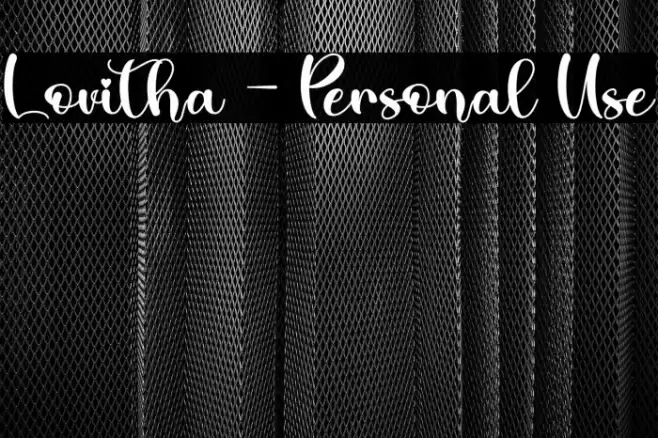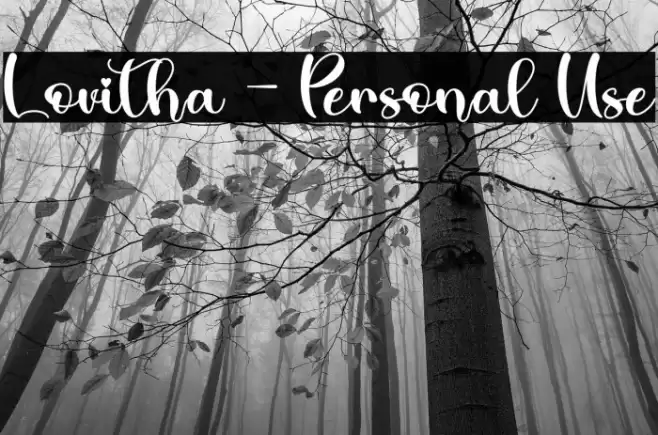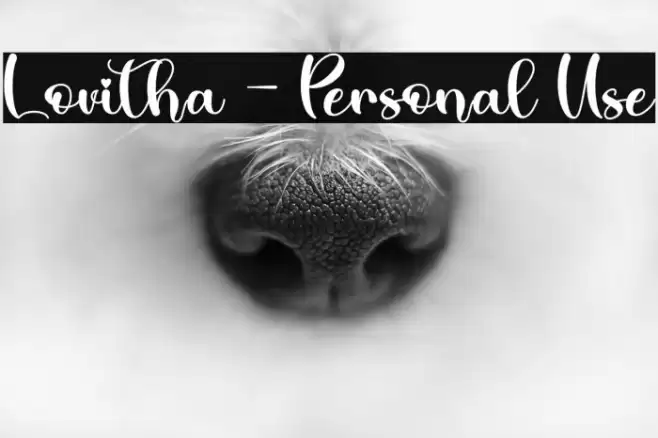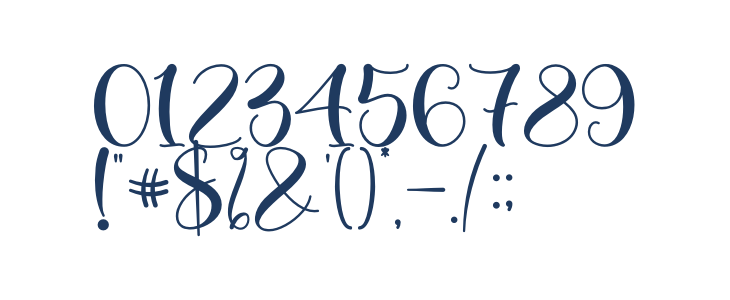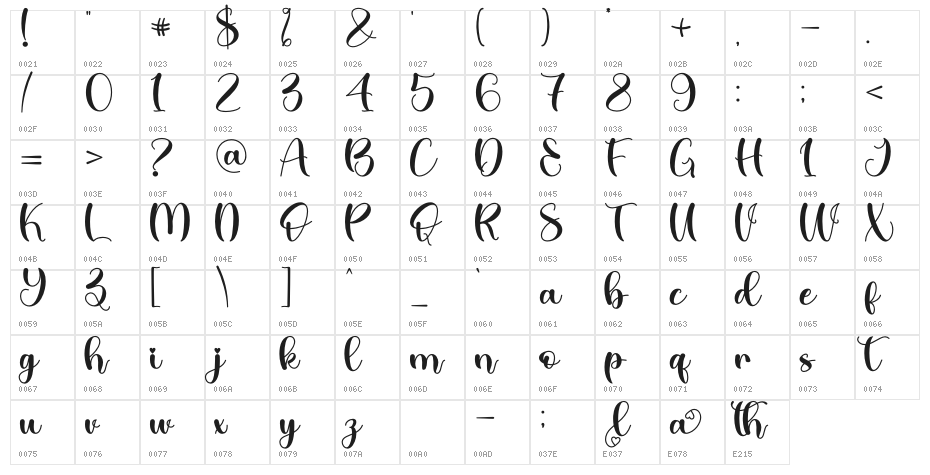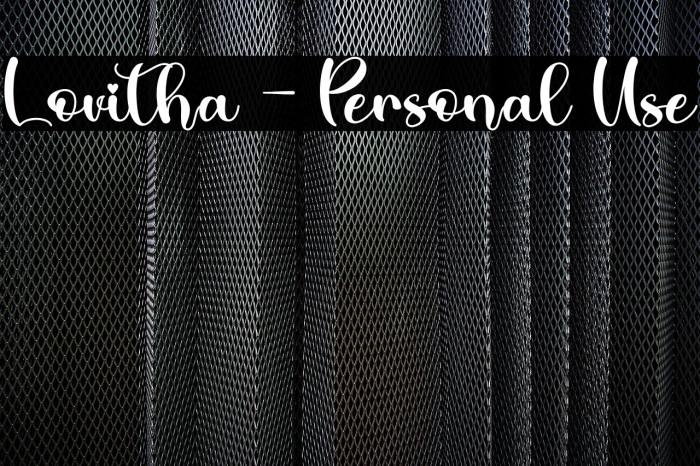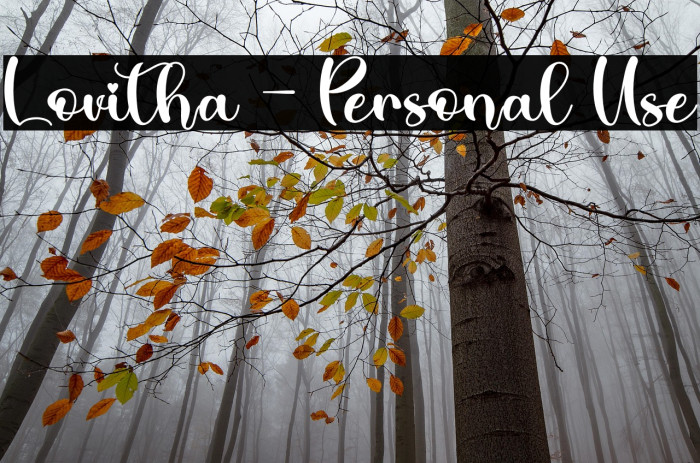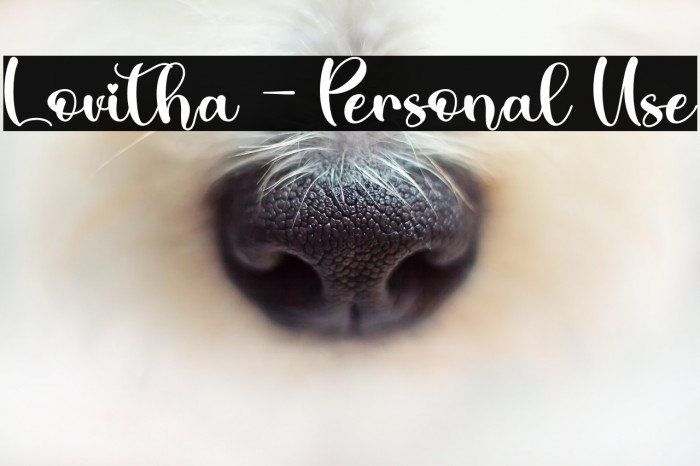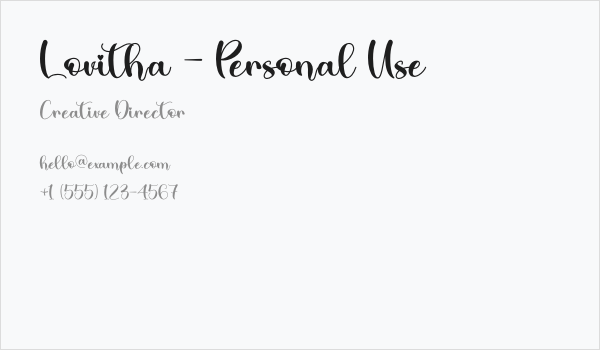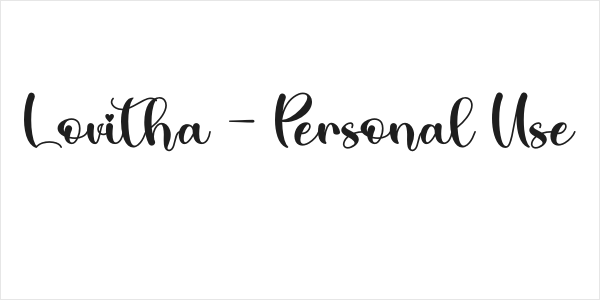
Lovitha - Personal Use Font
Lovitha - Personal Use Description
This font features a playful and elegant script style with a handwritten appearance. The letters are characterized by smooth, flowing curves and a consistent stroke width that gives it a balanced and harmonious look. The uppercase letters are bold and prominent, while the lowercase letters maintain a charming, whimsical feel. The numbers and special characters are designed to complement the overall aesthetic, with a similar fluidity and grace. This font exudes a sense of creativity and personal touch, making it ideal for projects that require a personal or artistic flair.
A playful and elegant script font with a handwritten style from Uncategorized fonts.
- Proposed Projects: Ideal for wedding invitations, greeting cards, personal branding, and creative projects.
- Use Case: Logos, Invitations, Personal Branding